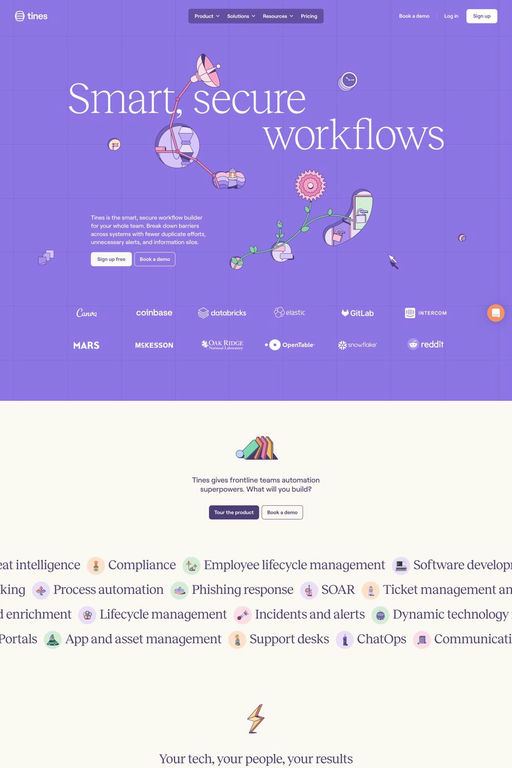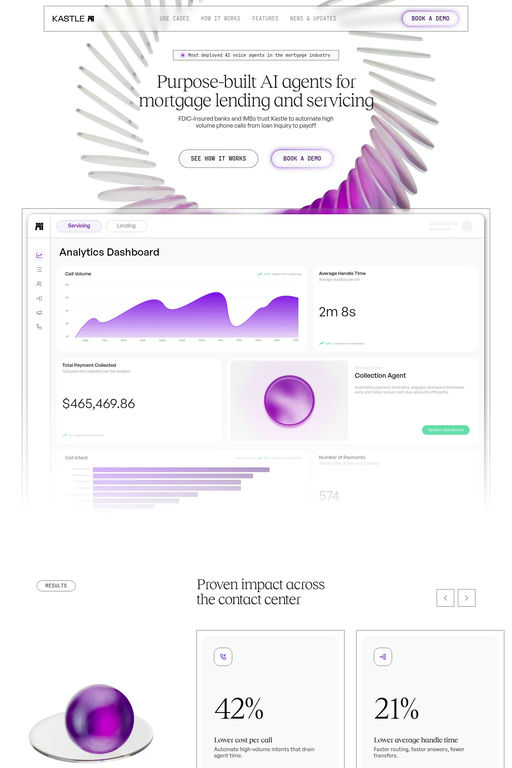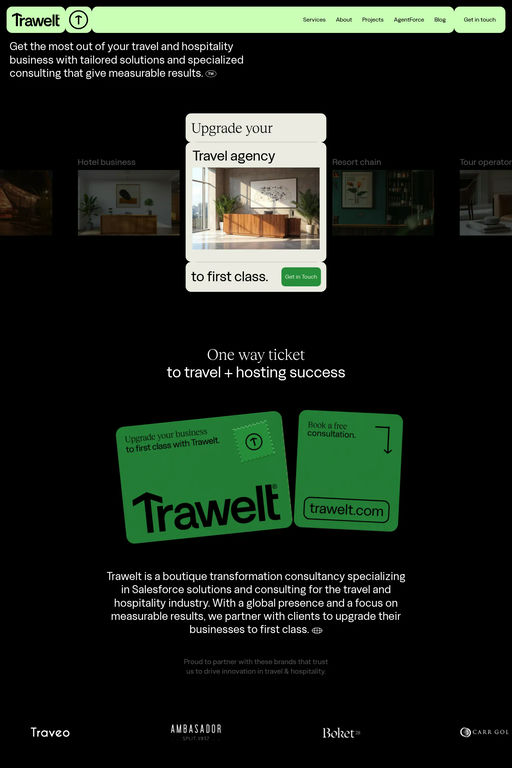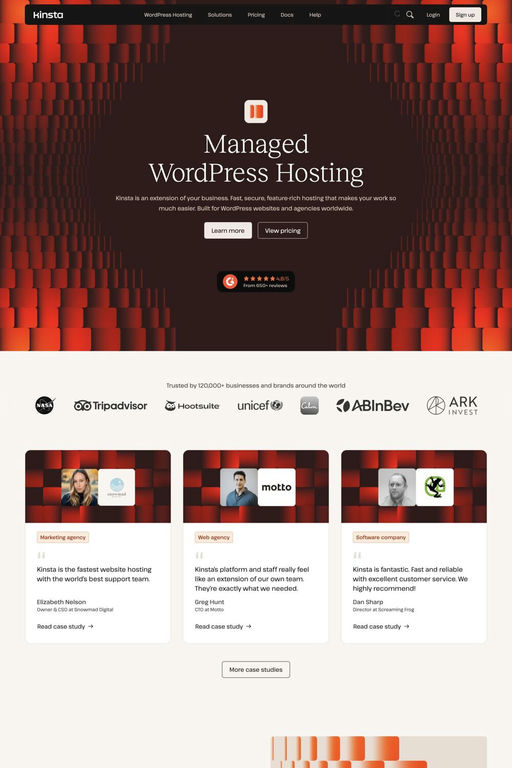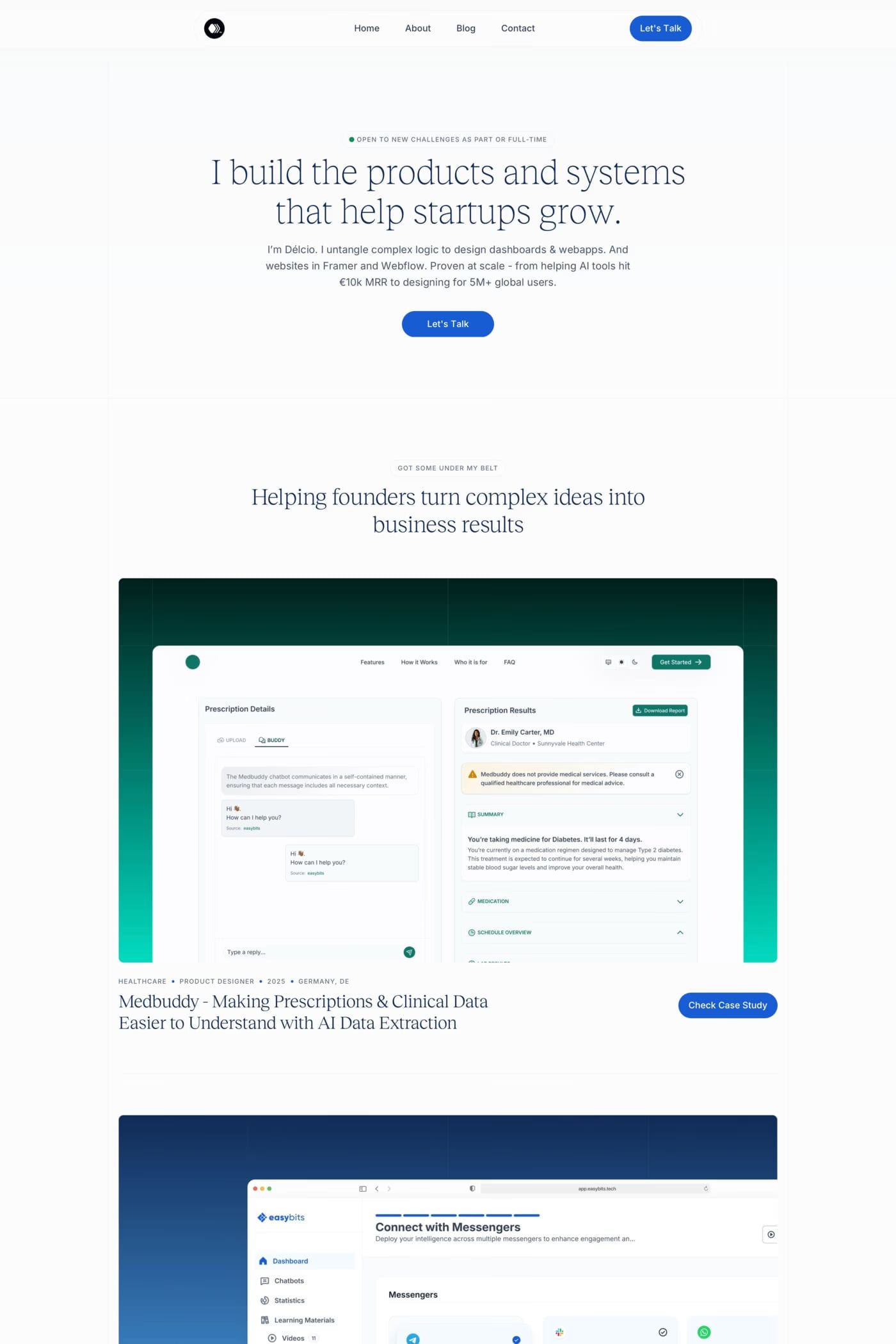
Reckless is a serif typeface from Displaay Type Foundry.
Reckless is a serif typeface with a renaissance (old-style) character and a significantly raised x-height. It was designed while studying the historical development and sources of serif typefaces in various libraries. The central idea was based on calligraphic tendencies that were carried over from early serifs and incorporated into contemporary designs.